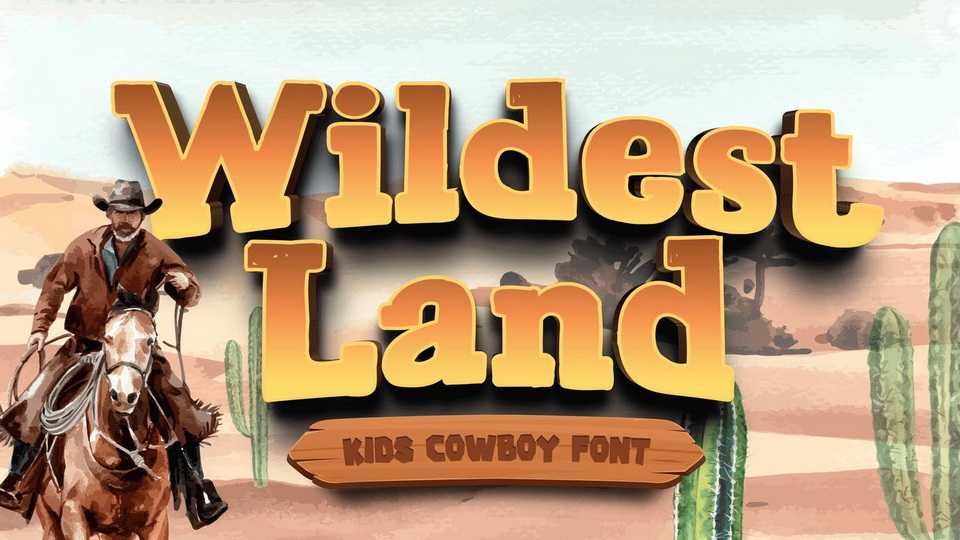
Download Wildest Land font, a gaming typeface. It is western, it is a bouncy baseline, it is Wildest Land, your new favorite western kids font in town.